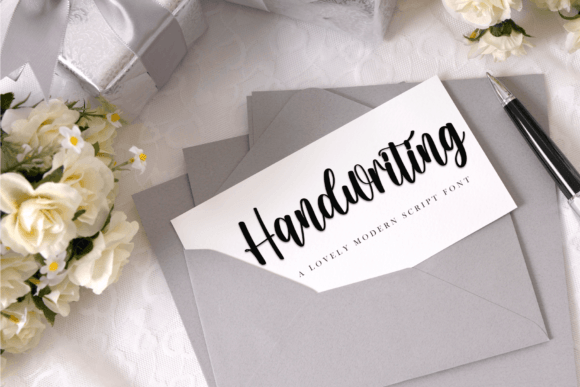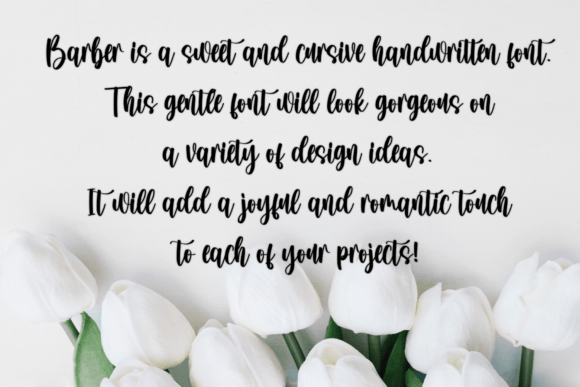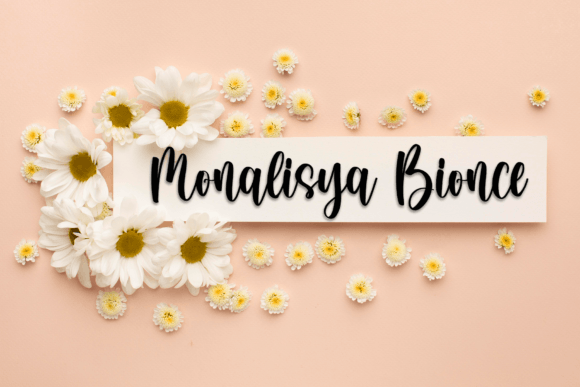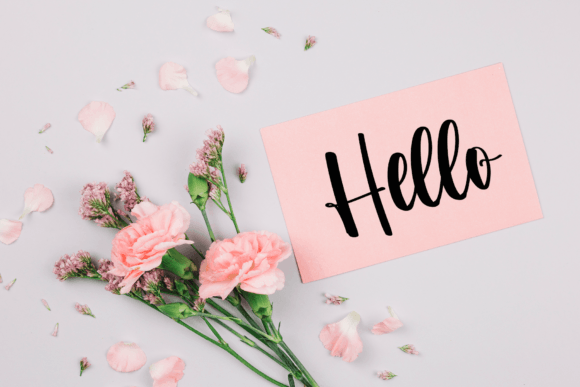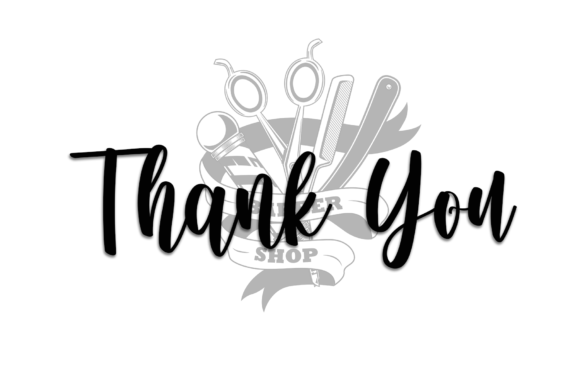
Barber Font
“Barber: Where Enchantment Meets Elegance in Handwritten Typography
Introducing Barber, an enchanting handwritten font that effortlessly weaves a spell of romance and sophistication into your designs. With its graceful curves and elegant strokes, this versatile font brings a touch of enchantment to a wide spectrum of creative projects. From greeting cards to captivating headlines, Barber guarantees to add a romantic feel to your next endeavor, creating an atmosphere of charm and allure that captivates the senses.
The allure of Barber lies in its enchanting nature, where each letter is meticulously crafted to evoke a sense of romance and elegance. Its delicate curves and graceful lines create a visual poetry that resonates with the heart, capturing the essence of enchantment. Imagine your greeting cards adorned with Barber’s romantic script, conveying heartfelt messages with a touch of magic and charm. Picture your headlines featuring its elegant letterforms, creating a sense of intrigue and allure. With Barber, your designs come to life with a romantic ambiance, making them visually captivating and emotionally resonant.
One of Barber’s standout features is its versatility. Its enchanting design allows it to adapt seamlessly to various applications, from elegant branding to captivating headlines and everything in between. Whether you’re crafting wedding invitations, designing social media posts, or working on any project that demands a touch of romance, Barber adds a sense of enchantment and sophistication, making your designs stand out with its timeless allure.
Moreover, Barber is more than just a font; it’s a poetic expression of romance and elegance. Its enchanting demeanor resonates with individuals who appreciate the art of handwritten typography, making it a favorite among designers and enthusiasts seeking a font that exudes charm and allure. Its presence adds a layer of depth and emotion to your designs, making them visually captivating and unforgettable.
In a world where emotions create lasting memories, Barber helps you make a statement. It speaks the language of enchantment and elegance, resonating with those who appreciate the beauty of handwritten artistry. Whether you’re designing for weddings, love-themed projects, or any other special occasion, Barber becomes your trusted companion, guiding you toward design excellence.
So, why settle for ordinary when you can embrace the extraordinary with Barber? Let this enchanting handwritten font be the muse for your romantic creative expressions, and watch as your projects come to life with elegance, charm, and timeless allure. Let your creativity flow, and let Barber be the brushstroke that paints your ideas into visually captivating love stories, leaving a lasting impression on the hearts of your audience.”